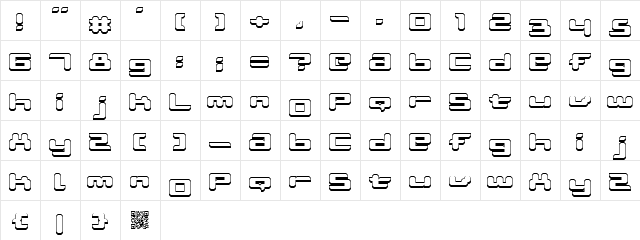
Ablattive Shadow
| Style | Shadow |
| Foundry | TracerTong |
Design Context for Ablattive Typeface
Ablattive brings ornamental detail and strong personality to headlines and identities, where visual impact matters more than quiet functionality.